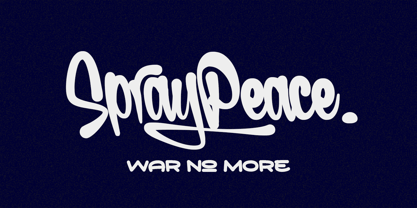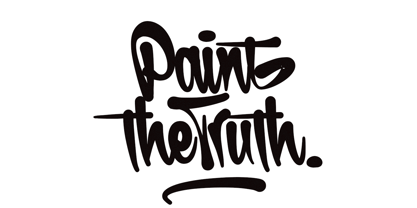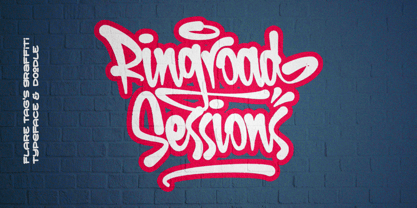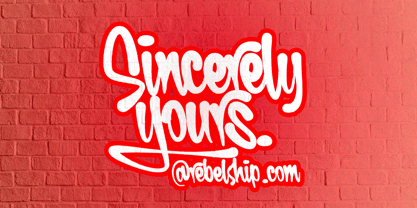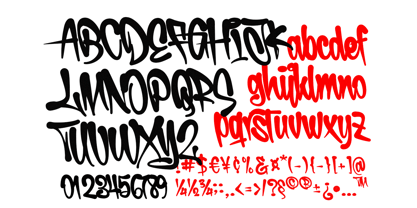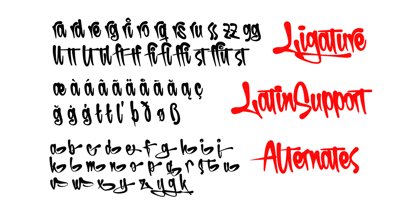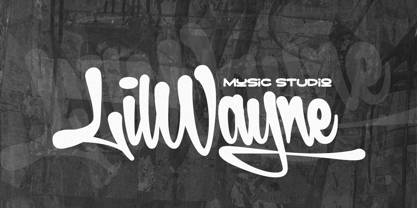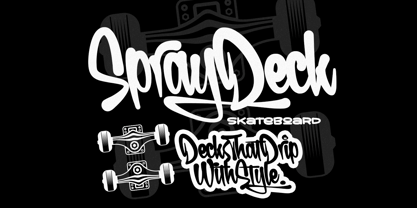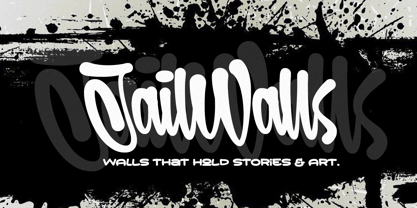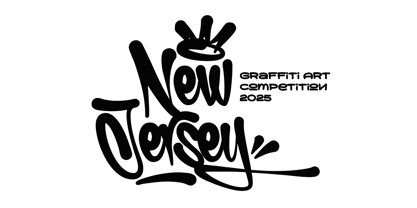
Ringroad Sessions
The Ringroad Sessions Font Family was designed by Muhammad Ridha Agusni, Muhammad Mevlana Maliq Azizi and published by MMMA Creative. Ringroad Sessions contains 2 styles and family package options. More about this family
Ringroad Sessions is a straight-up street banger graffiti font with that raw spray can flare look. It’s loud, messy in all the right ways, and drippin’ with real back-alley energy. Think tunnel tags, midnight missions, and walls that talk.
Each letter’s got that fresh out the can vibe, soft edges, wide sprays, and flared lines like you just hit it with a fat cap. And to top it off? Ringroad Sessions comes packed with extra doodles, tag style elements, arrows, splats, and street icons to boost your designs with that real sketchbook heat.
Whether you’re cookin’ up streetwear heat, a gritty logo, or artwork that needs some rebel soul, Ringroad Sessions keeps it 100.
This ain’t just a font, it’s a street session frozen in time. Pure paint. Pure attitude. Plus some wild extras to take it next level.
MMMA Creative is an independent type foundry based in Aceh, Indonesia, founded by Muhammad Mevlana Maliq Azizi. With a love for expressive letterforms, MMMA Creative focuses on creating display, graffiti, and handwriting fonts that carry a personal and creative touch.Inspired by urban culture and the freedom of visual expression, each typeface is crafted with care—whether it's bold graffiti styles or natural handwriting. MMMA Creative is a place where letters are shaped by passion, built with a DIY spirit, and made to connect through character.